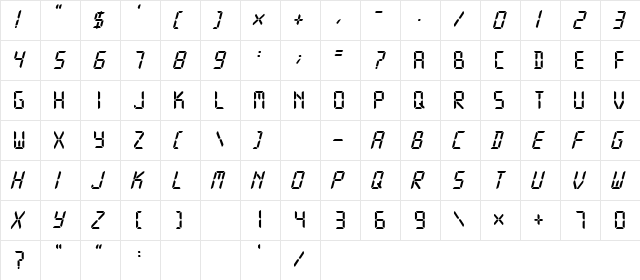
Digital Regular Free Font
Digital Regular
Design Context for Digital
Digital has a distinctly futuristic character, with geometric precision and clean angles that feel at home in technology, gaming, and sci-fi contexts.
Pro Tip: Try Digital with generous letter-spacing in UI labels and navigation - the geometric forms benefit from room to breathe.